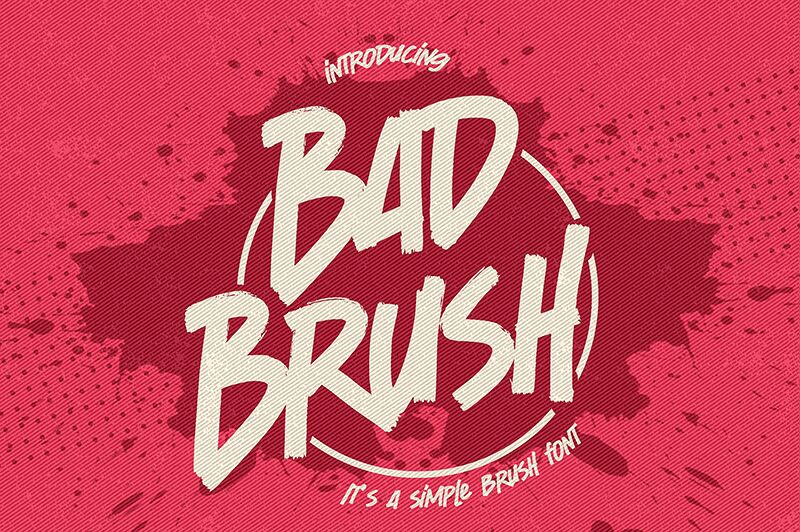
BadBrush
Dive into the dynamic world of typography with Bad Brush, a creation by the innovative Gassstype that breaks the mold of conventional fonts. Embodying a semi-light weight and condensed width, Bad Brush stands out with its striking brush style, capturing the essence of spontaneity and fluid motion that only a true brush font can offer. Its effortless strokes convey drama and energy, making it an ideal choice for designers aiming to inject a touch of authenticity and personality into their work.
Bad Brush isn't just another font; it's a statement. With its simple yet bold approach to design, this font is perfect for those seeking to craft modern, unique visuals that demand attention. Whether you're designing labels, curating quotes for social media, or branding your latest project—Bad Brush adds an organic charm that is versatile enough for packaging, greeting cards, or even as an overlay on evocative photography.
Embrace the creative potential of Bad Brush and let your projects resonate with its natural elegance and spirited character.